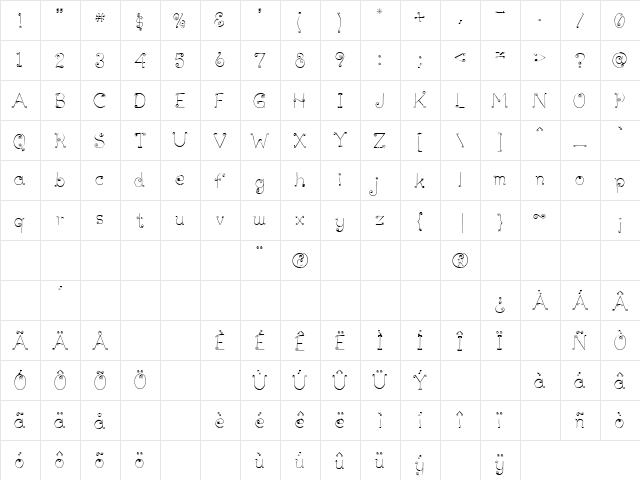
Lickcurl Petite Regular
Design Context for Lickcurl Petite Typeface
Lickcurl Petite is a composed and adaptable typeface that performs quietly and consistently across a wide range of design contexts.